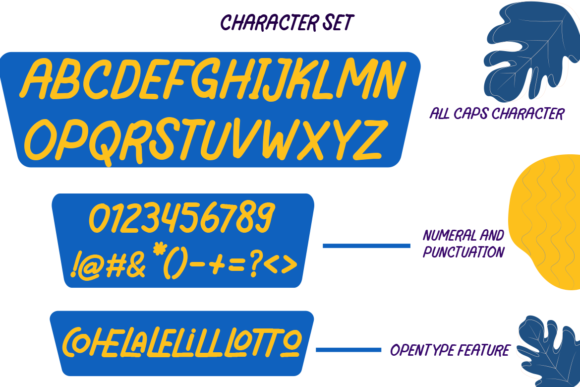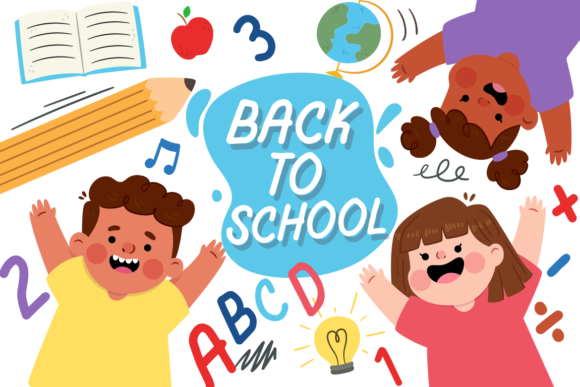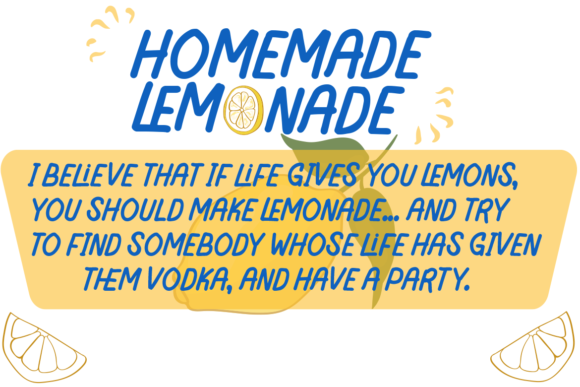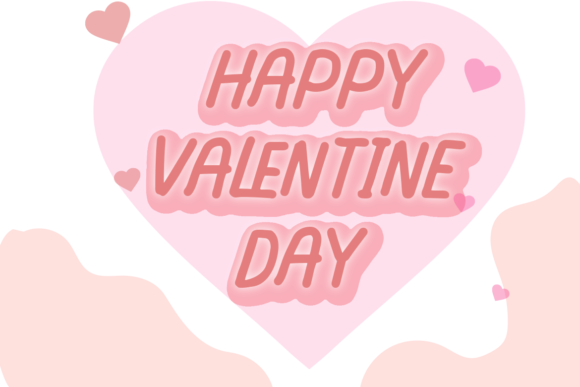
Introduction to Lemilio Font Font
Fonts play a crucial role in design, and the Lemilio Font font is a typeface that brings both character and versatility to any project. Whether you’re working on a branding project, a website, or a print design, the Lemilio Font font offers a unique style that can elevate your work.
Lemilio is a super fun and playful hand-lettered display font.
It is perfect for headings, flyer, greeting cards, product packaging, book cover, printed quotes, logotype, apparel design, album covers, etc .
Key Features of Lemilio Font Font
Why Choose Lemilio Font Font?
The Lemilio Font font is more than just a typeface – it’s a design tool that helps you communicate your message with style and clarity. Its unique character set and versatile design make it suitable for a wide range of applications, from elegant invitations to bold headlines.
With its carefully crafted letterforms and balanced proportions, the Lemilio Font font ensures readability and visual appeal across all mediums.
What makes Lemilio Font font special?
The Lemilio Font font stands out with its unique design, exceptional readability, and versatility across various design applications.